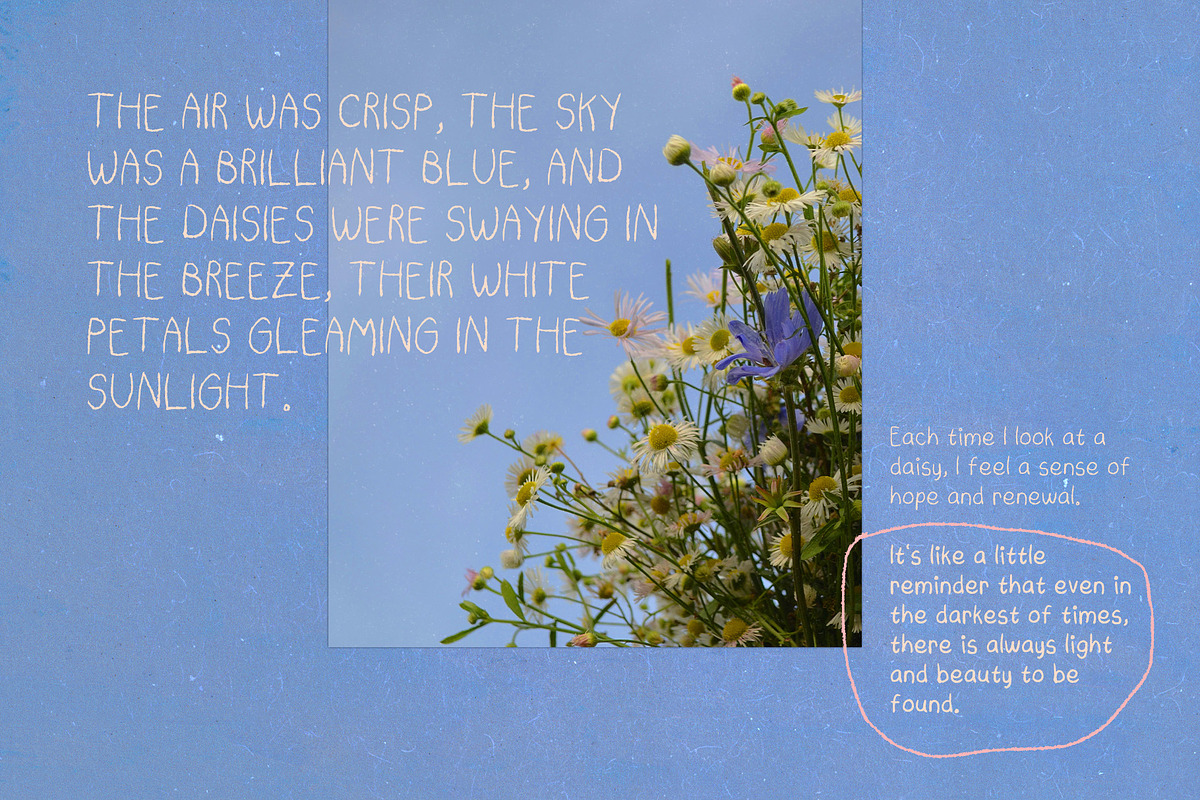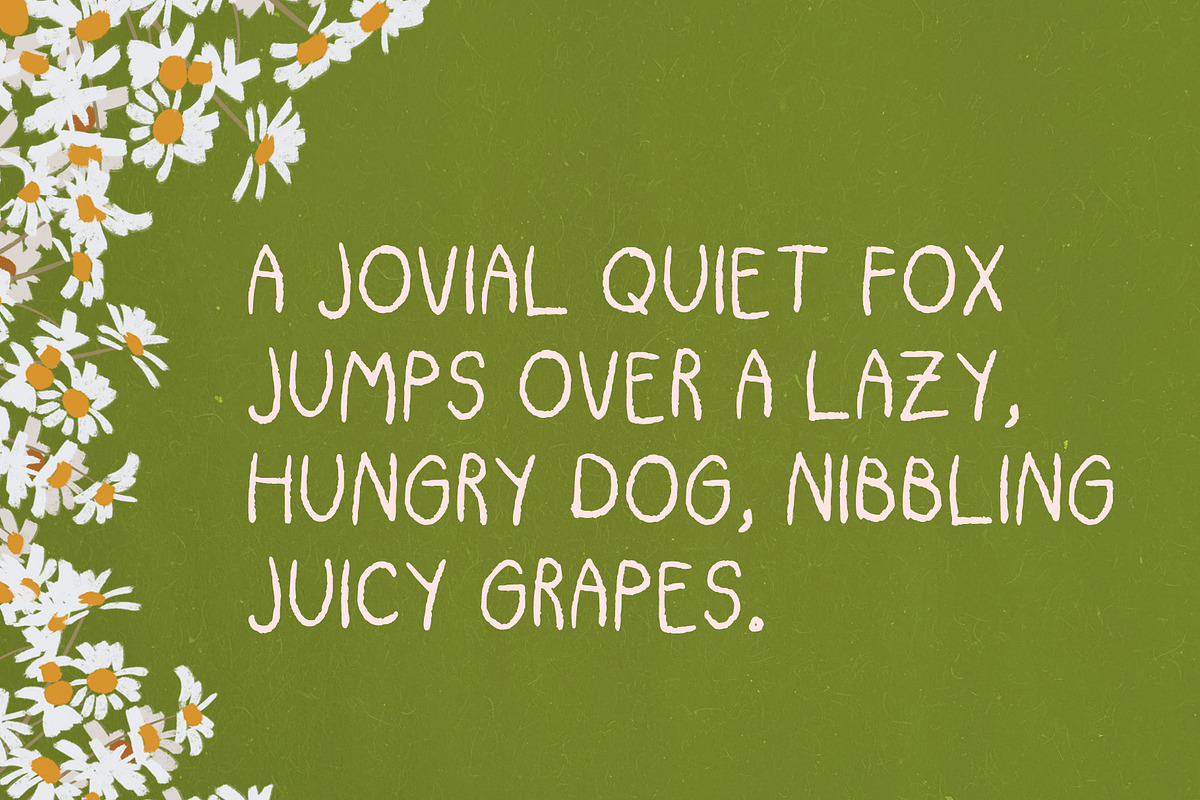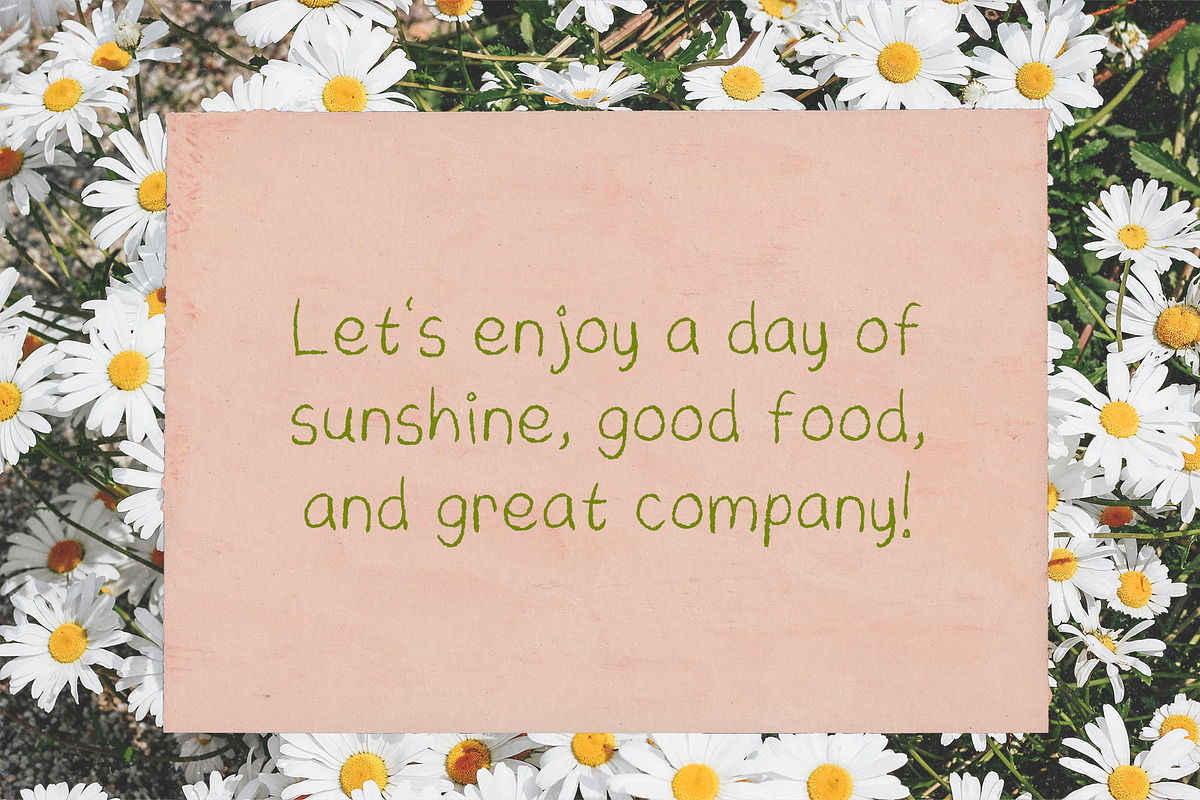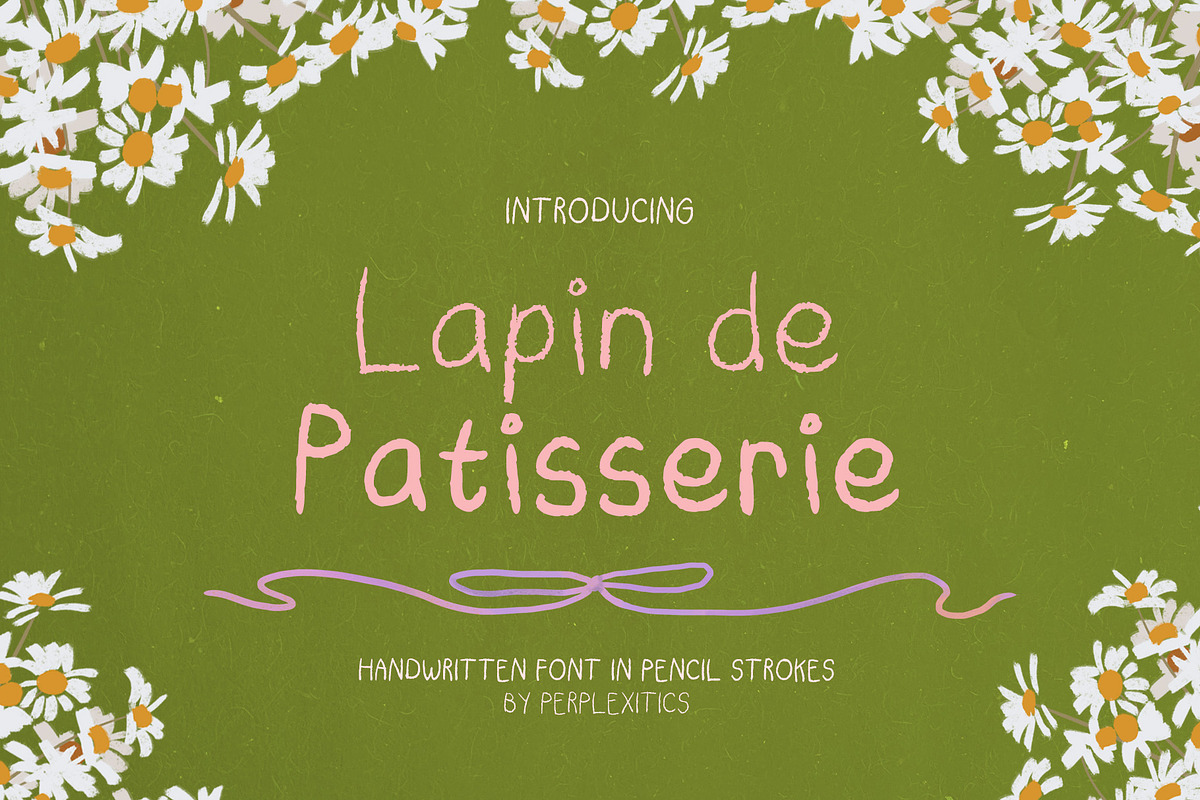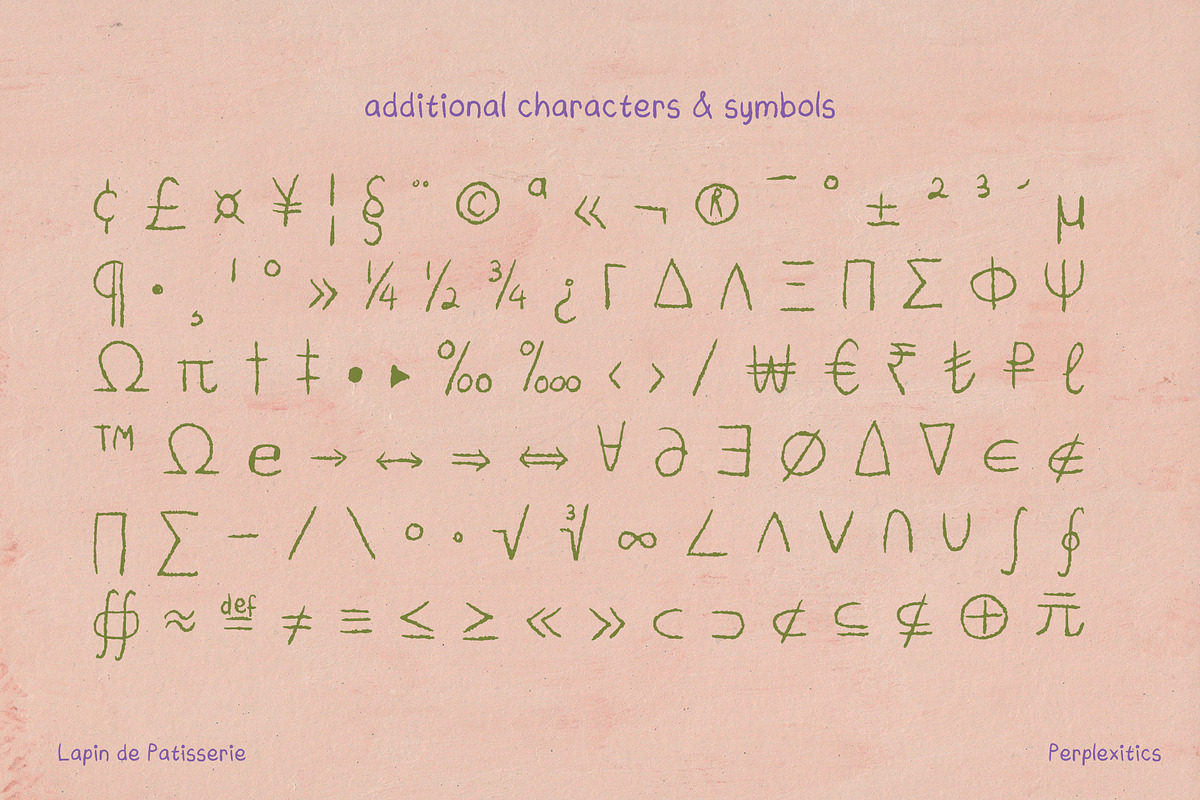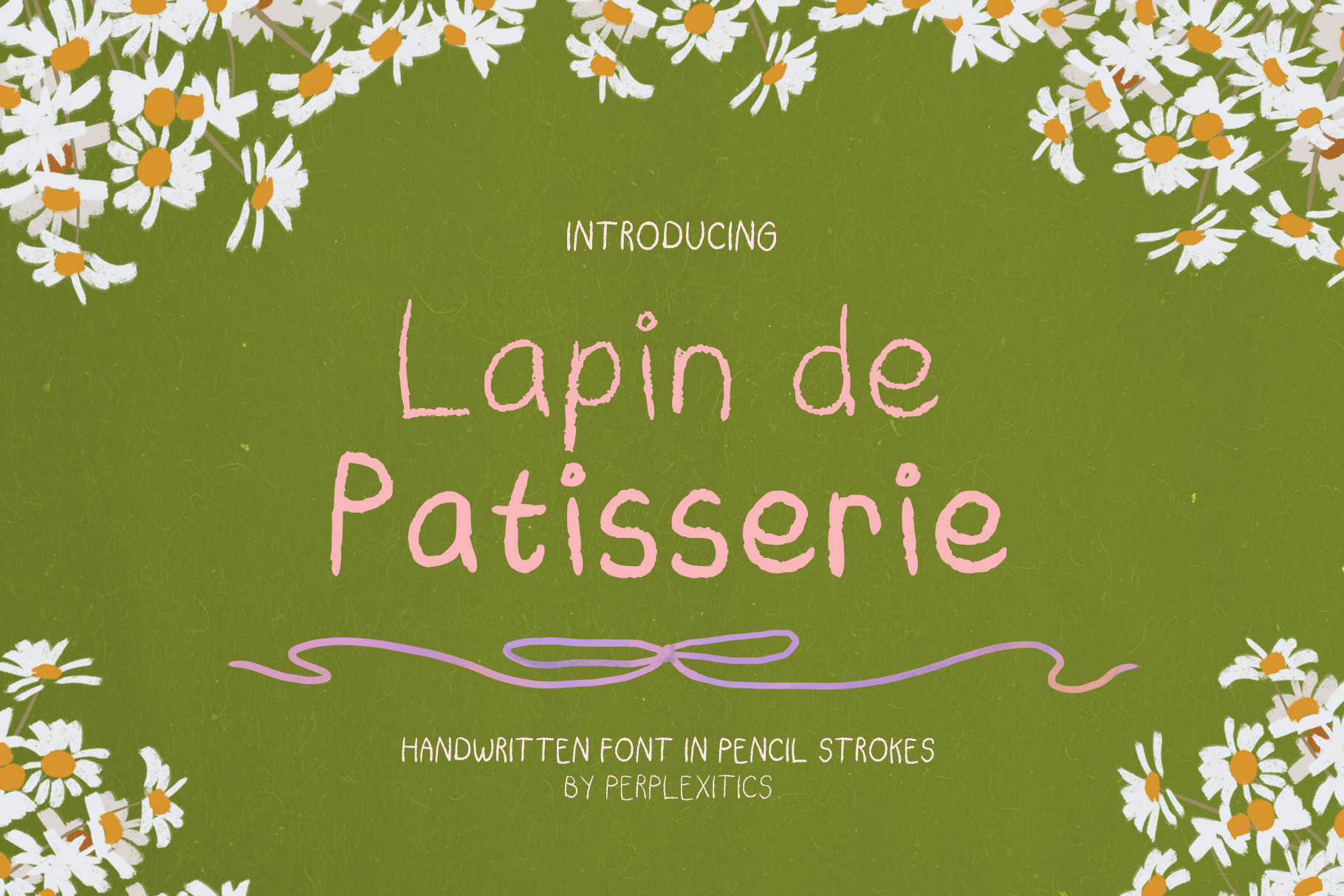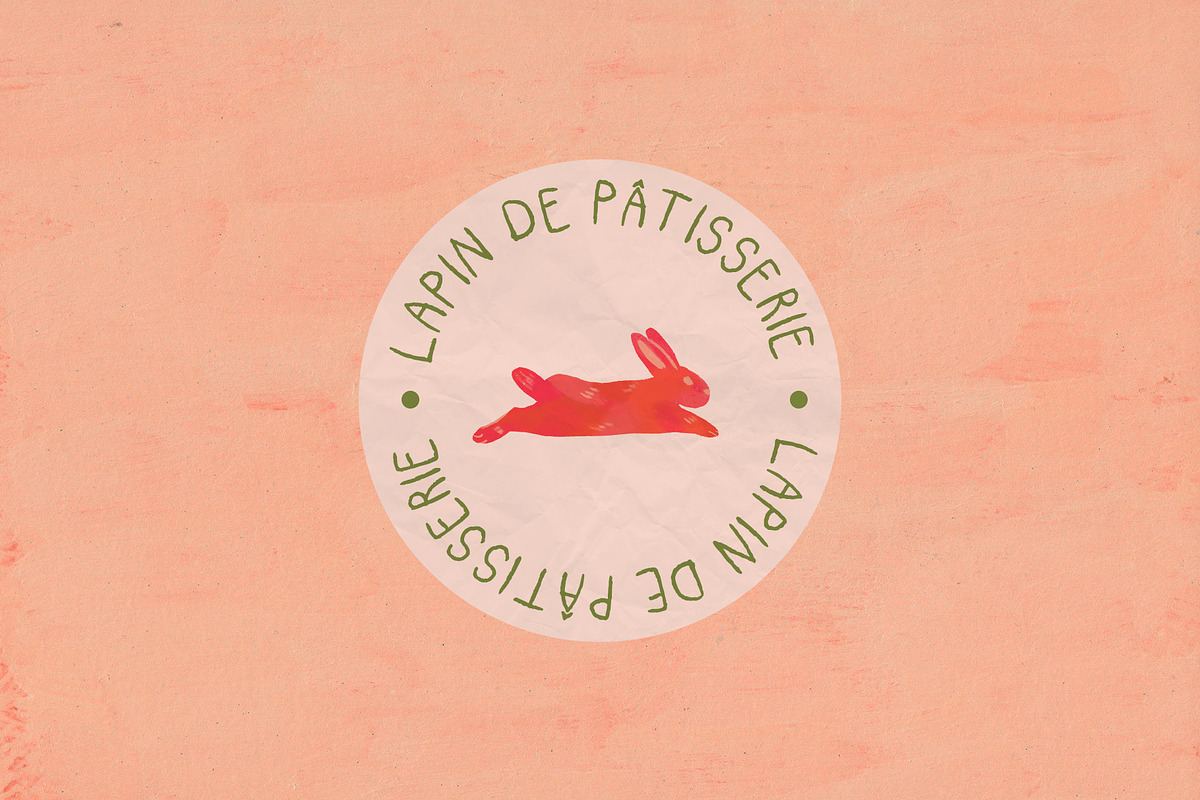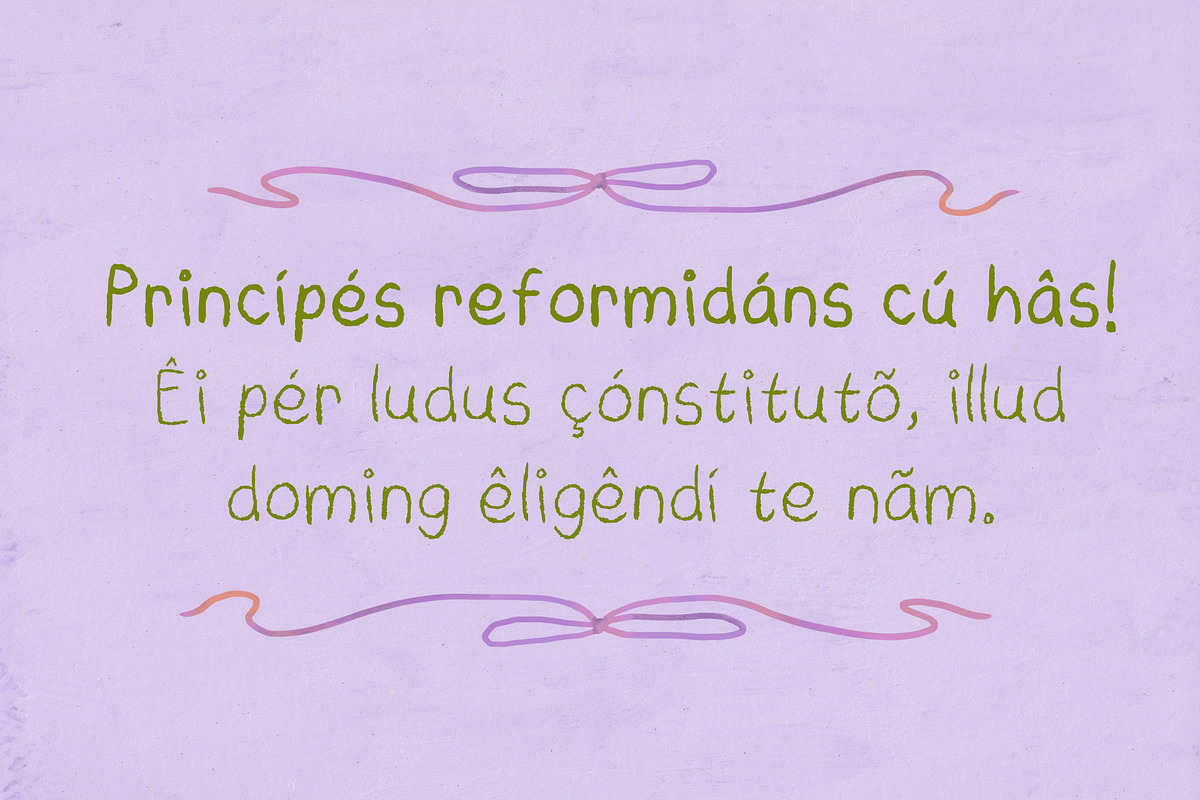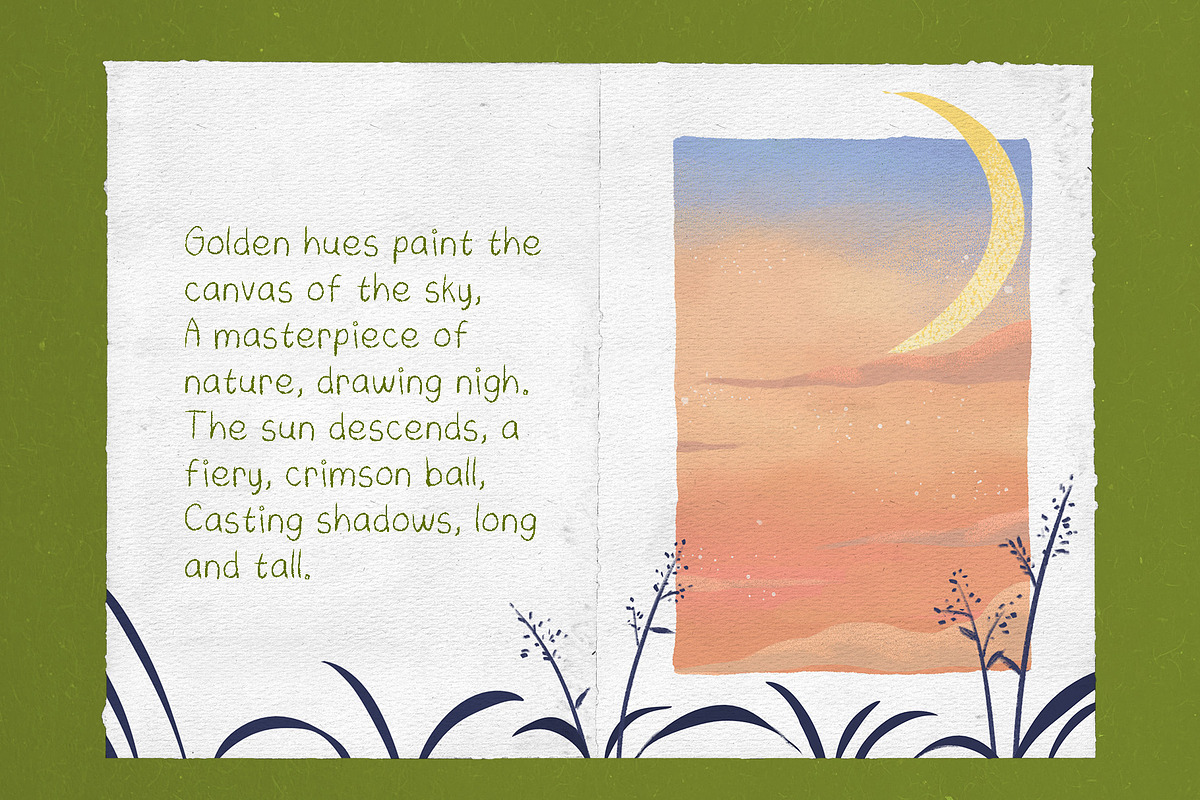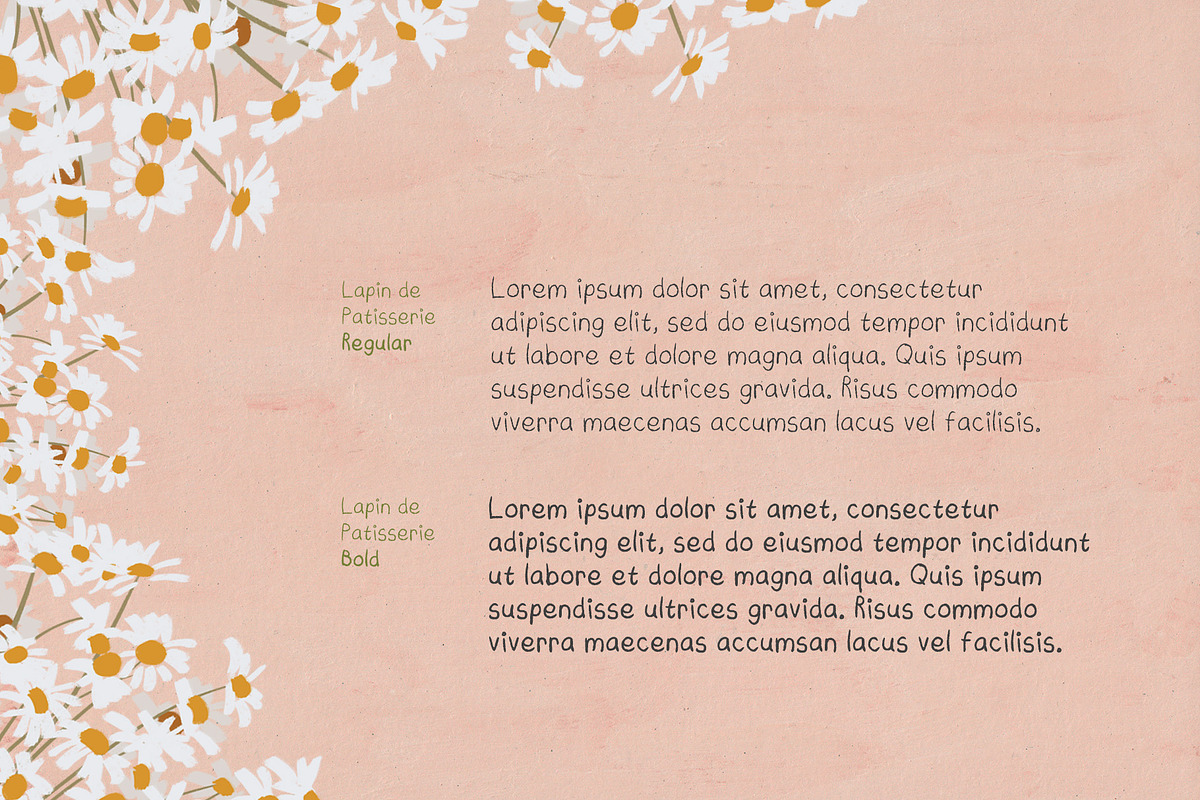
Lapin de Patisserie Pencil Font
Lapin de Patisserie is a charming and playful handwritten font in pencil strokes that evokes the feeling of a cozy bakery. Its rounded letters and gentle curves give it a friendly and approachable look, Lapin de Patisserie is sure to add a touch of sweetness to your project.
Lapin de Patisserie Font is packed with everything you need, including uppercase and lowercase letters, numbers, and punctuation. Multilingual support.